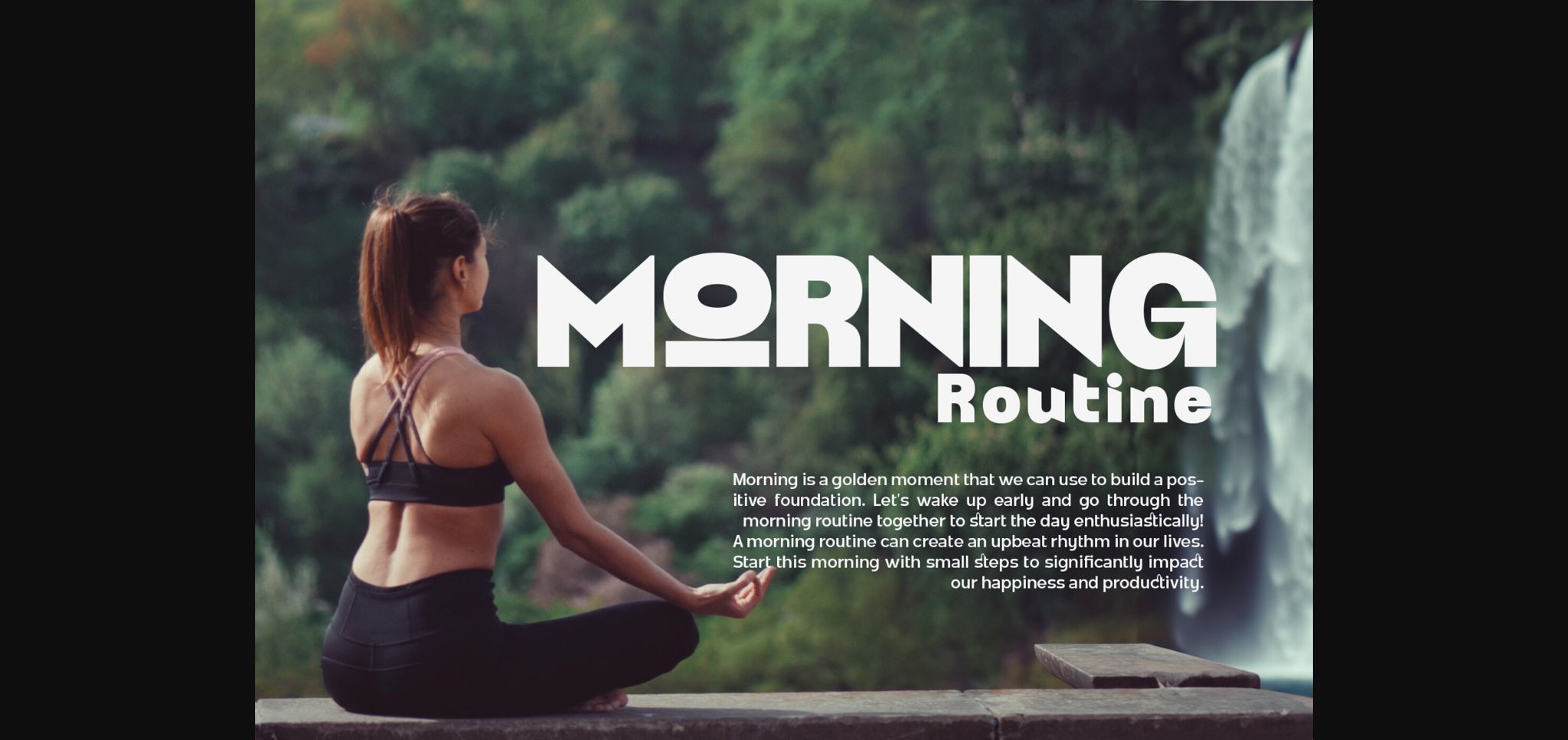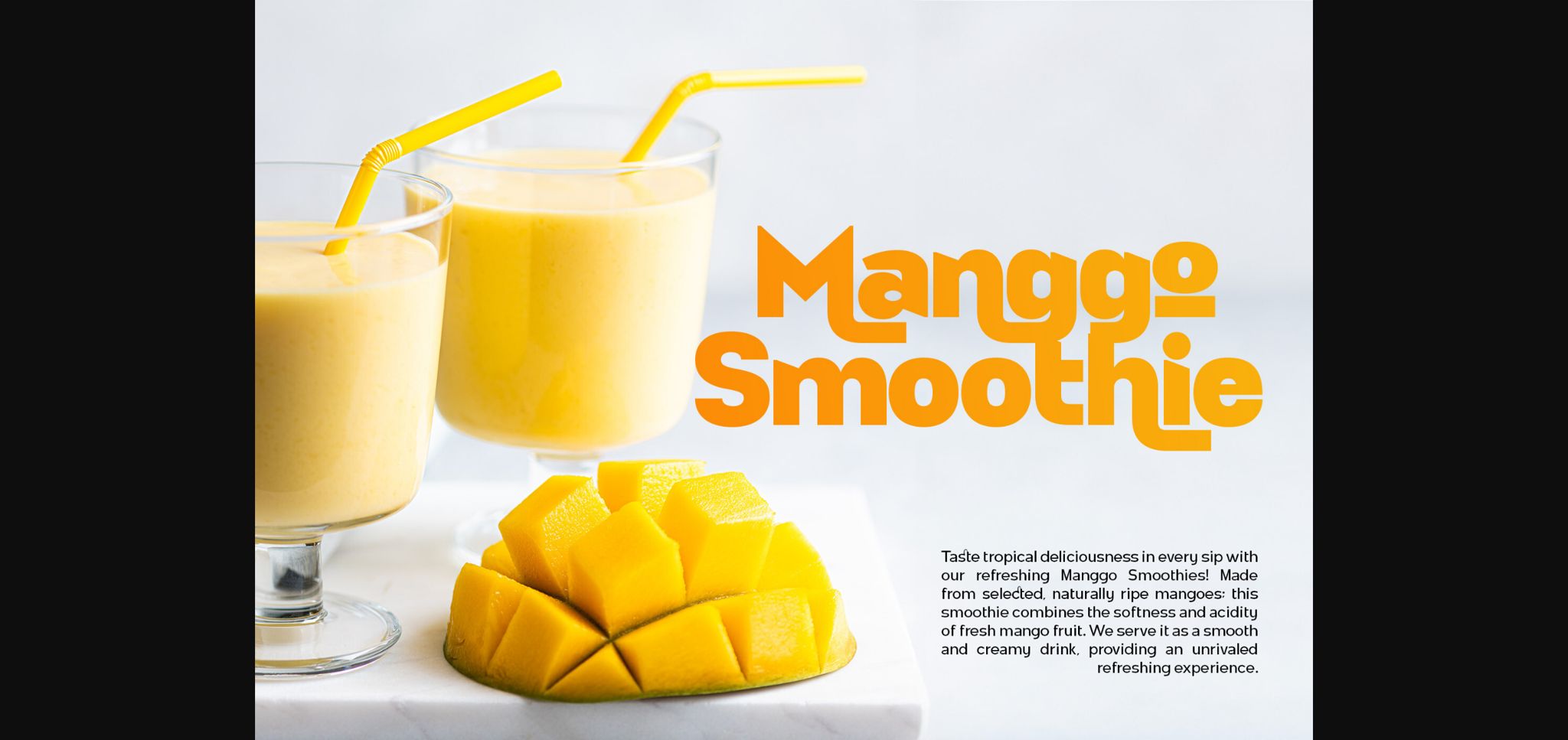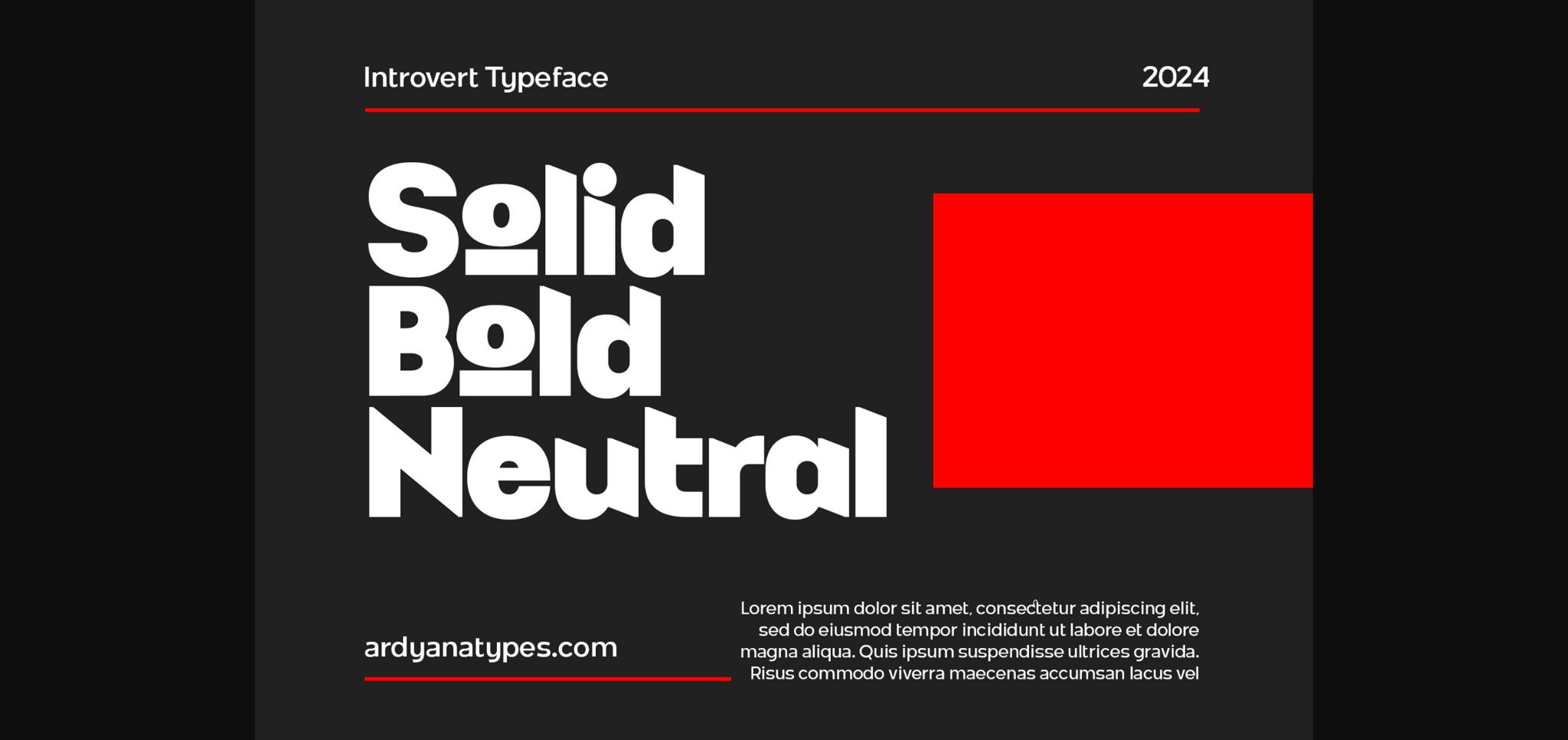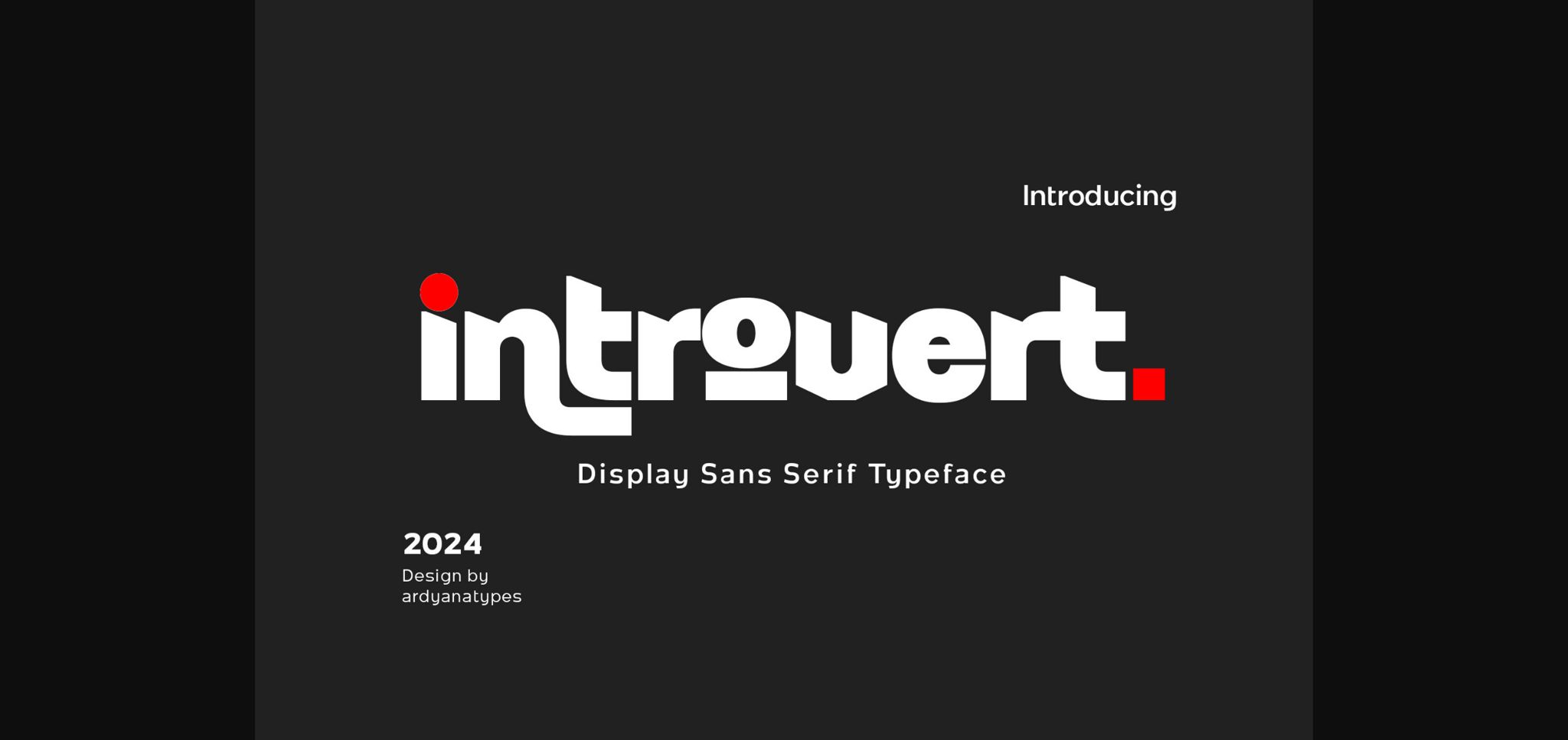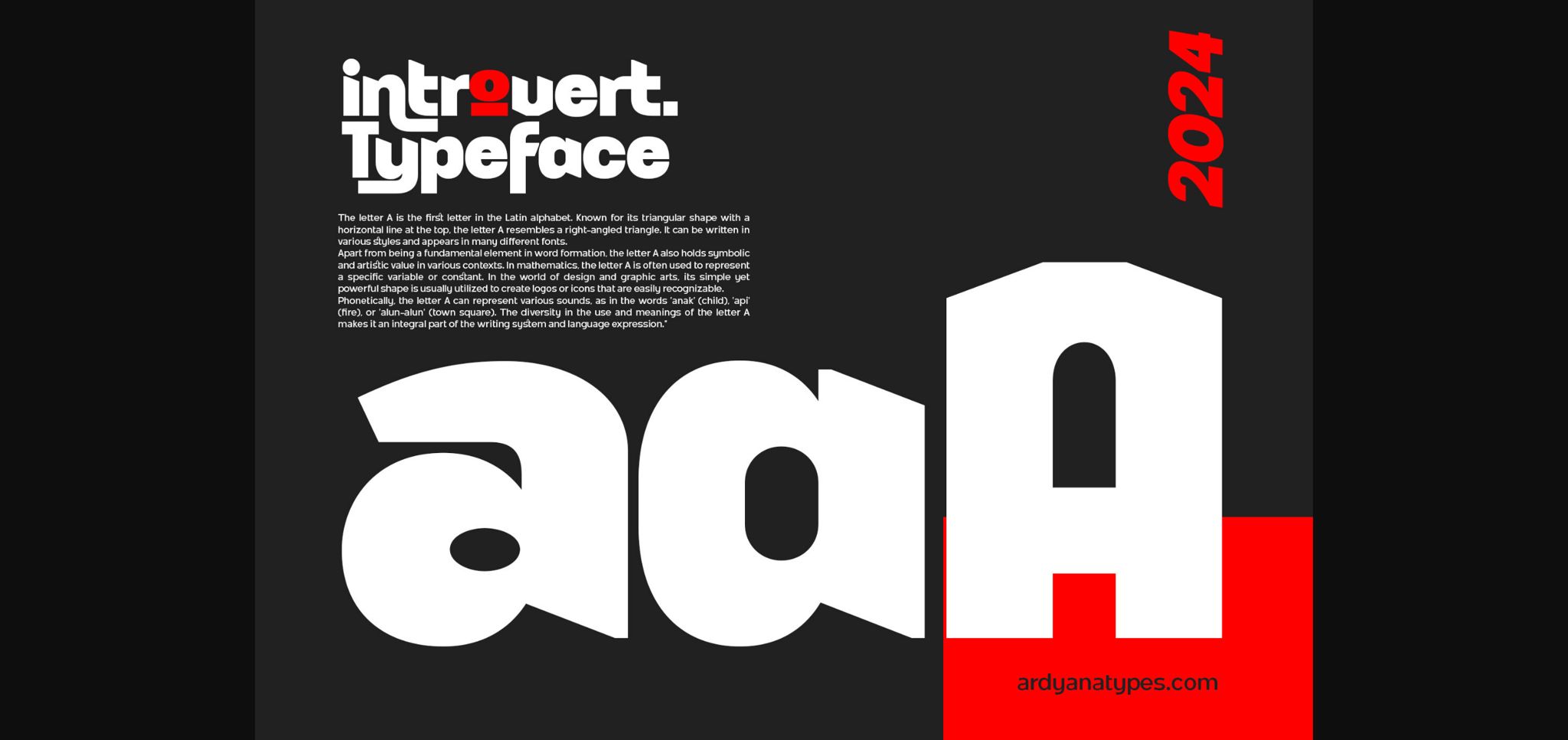
Introvert Font
About Introvert Font
Introducing Introvert, the font that speaks volumes with its simplicity yet exudes unparalleled assertiveness. As a sans-serif typeface, Introvert is meticulously crafted with a unique form, offering extraordinary versatility for every design it graces. Its clean lines and sharp edges give it a commanding presence, making it perfect for projects that demand attention.